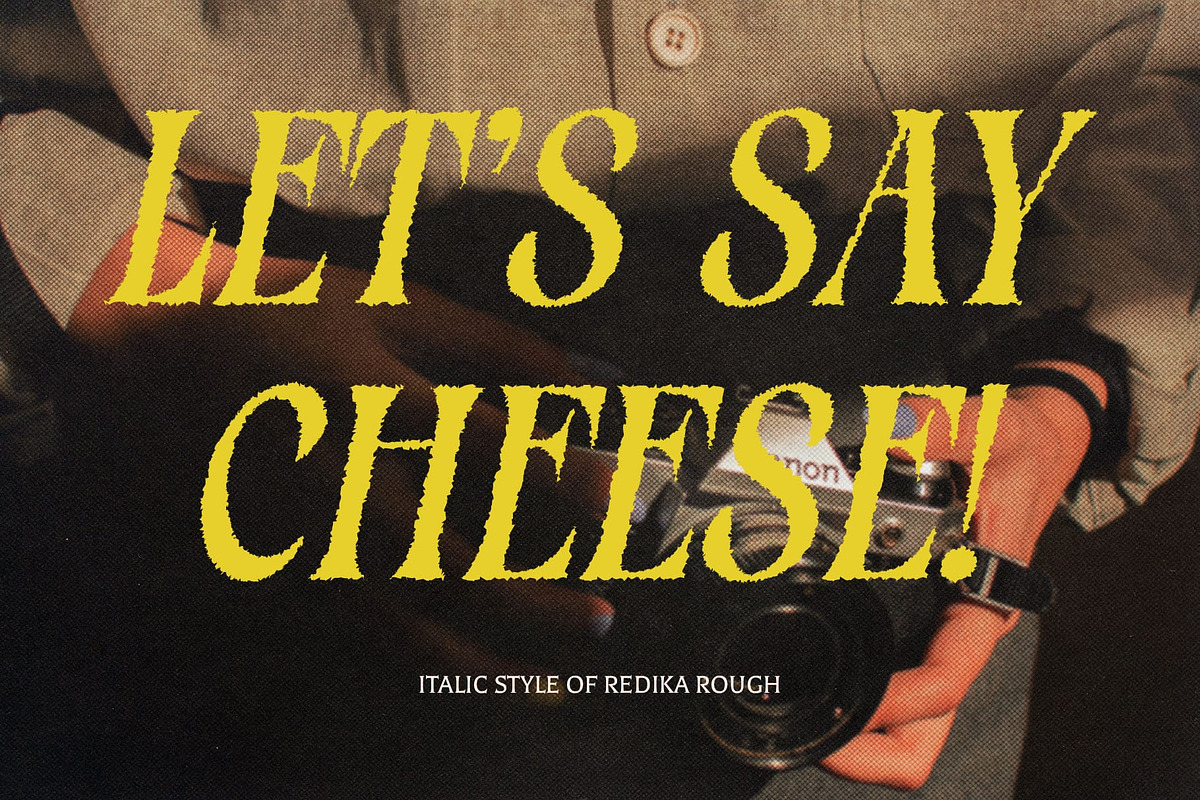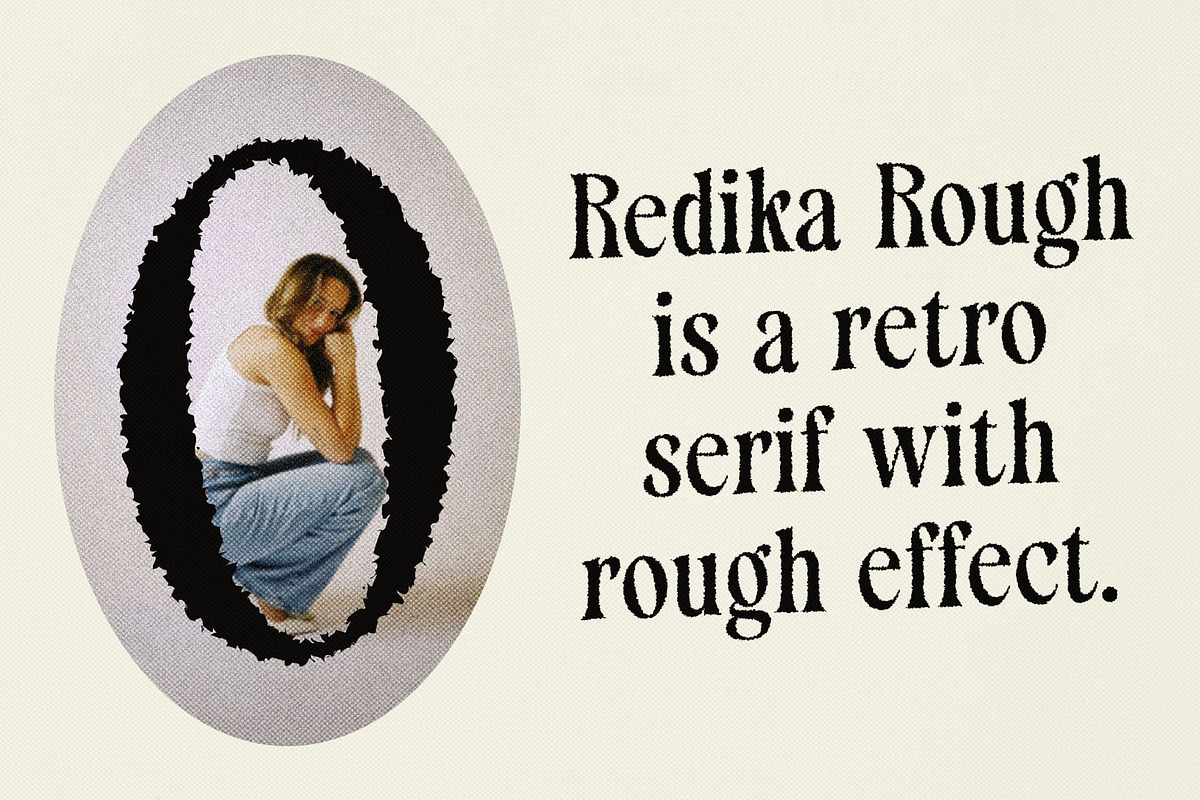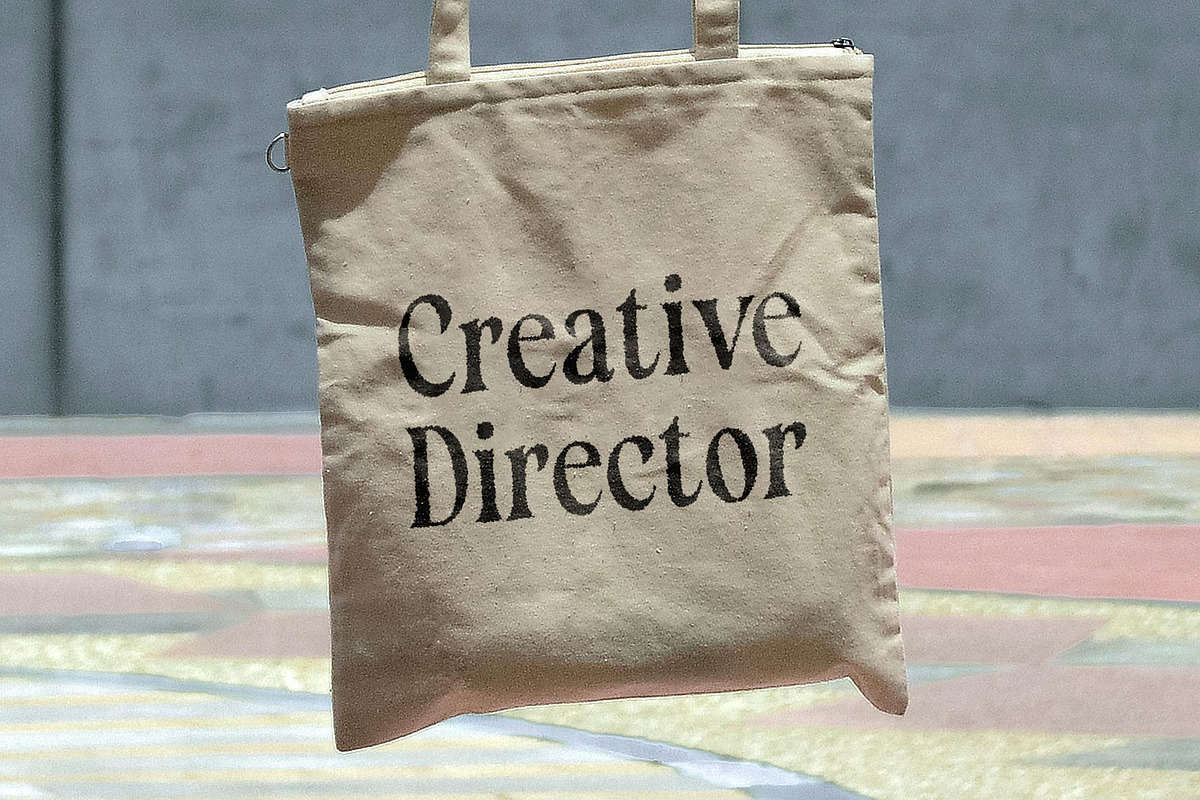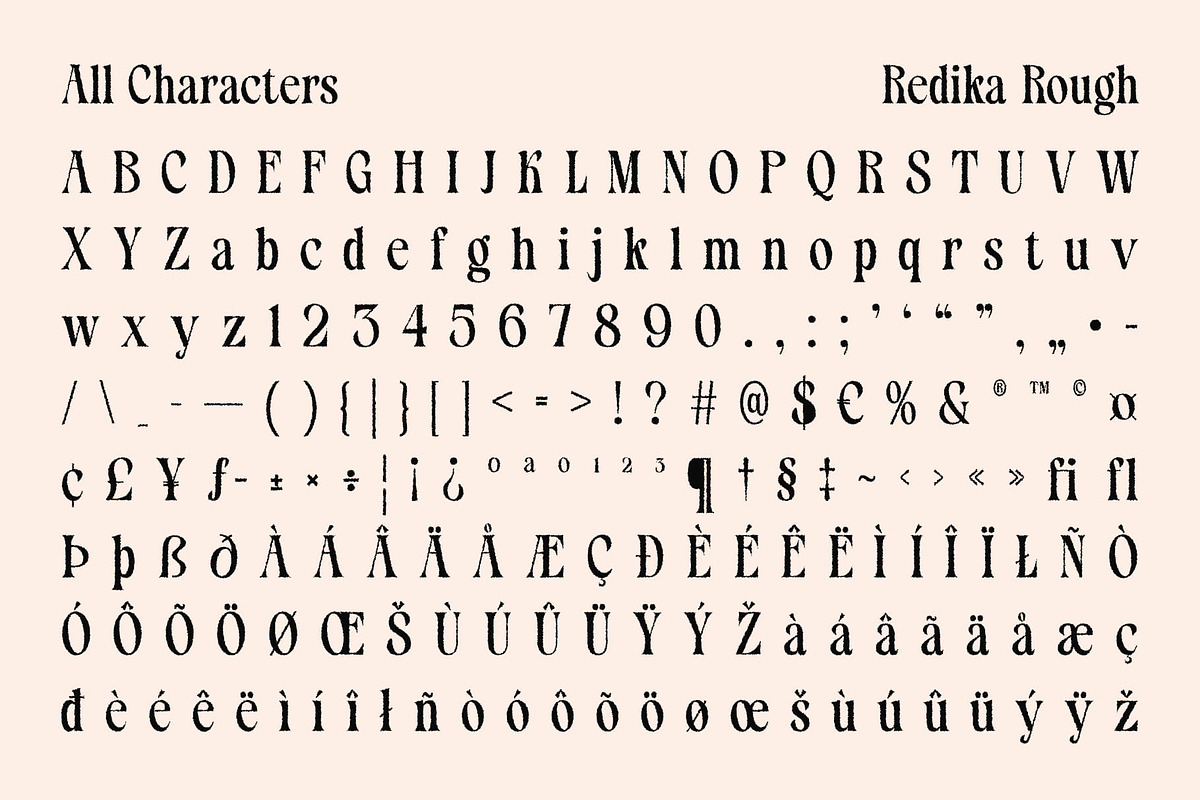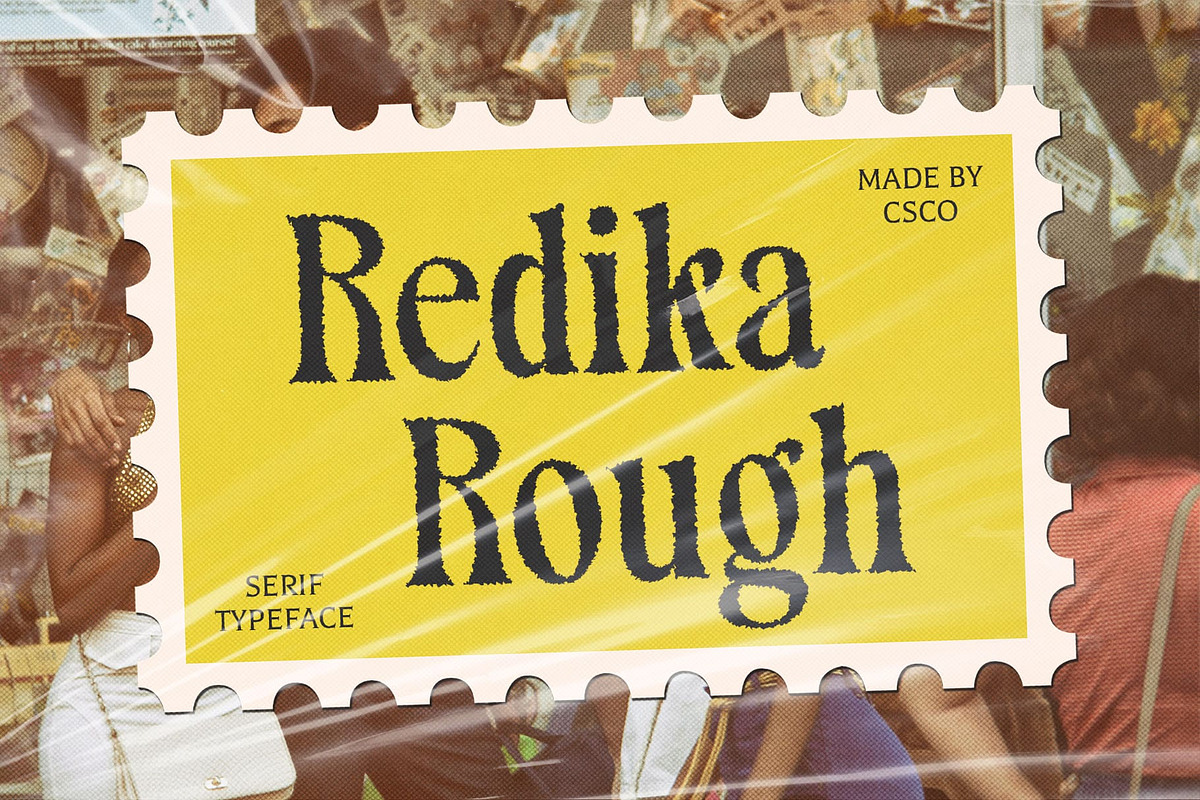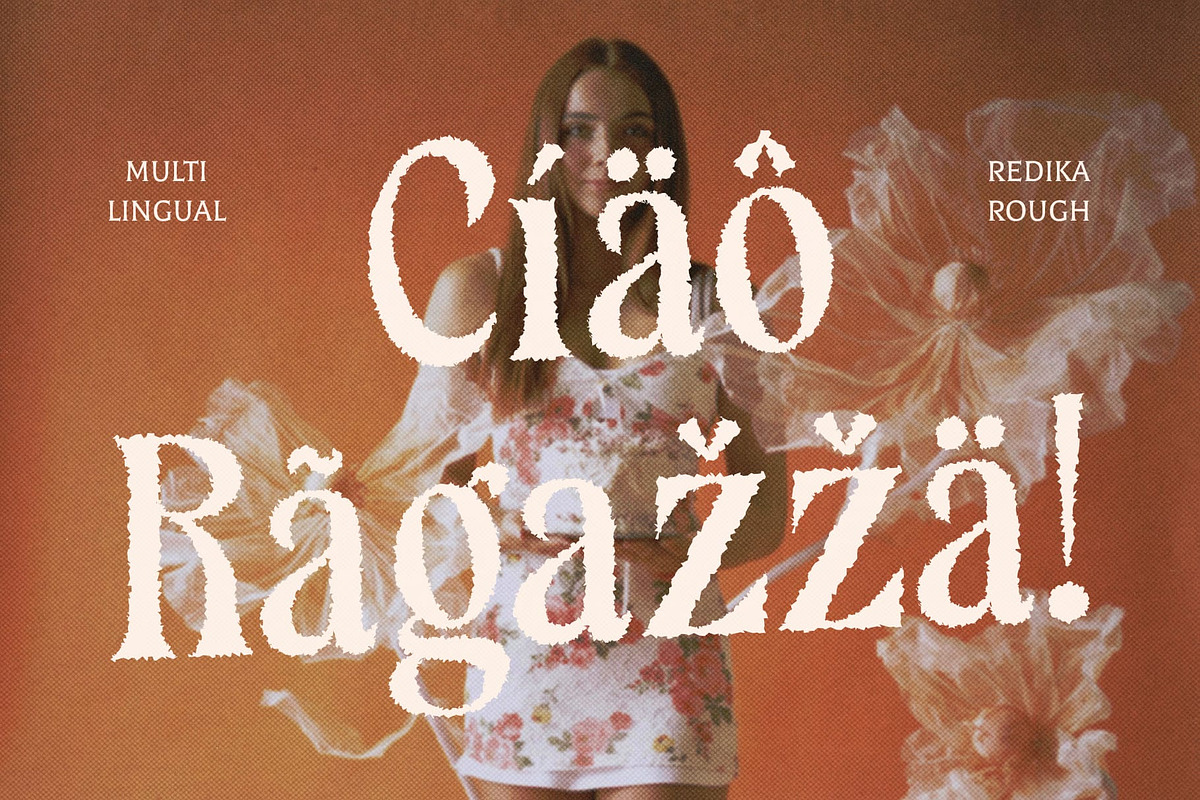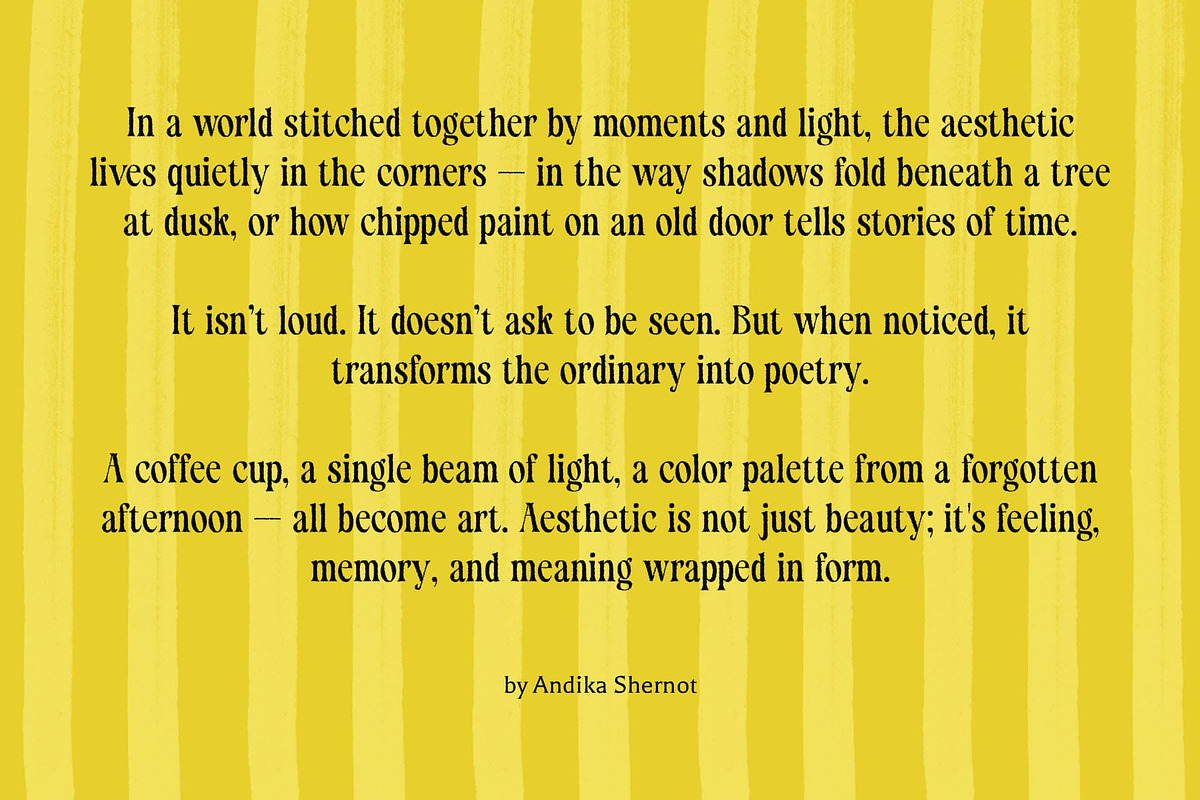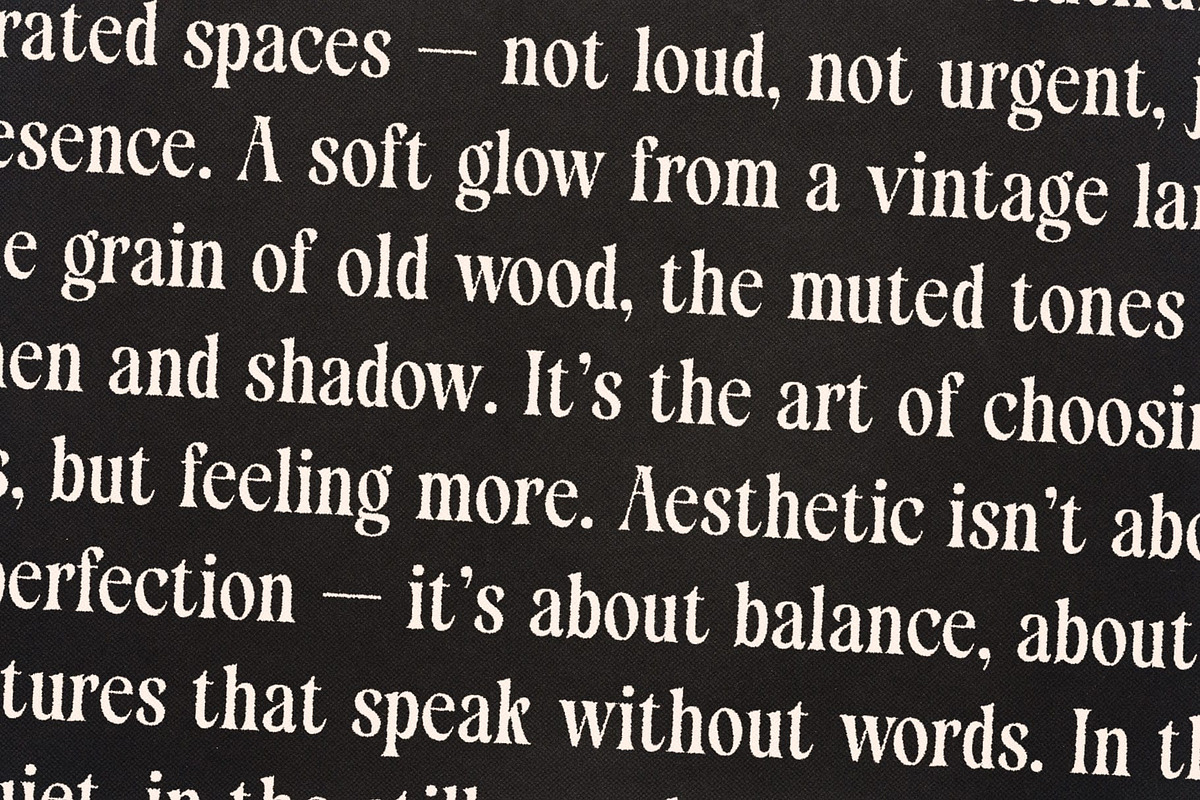
Redika Rough
Redika Rough Font – Timeless Elegance with a Textured Soul
Modern Meets Classic in Refined Form Redika Rough Font beautifully blends the charm of classic serif design with a clean, modern sensibility. Its elegant letterforms feature graceful curves and crisp lines, offering a look that is both polished and captivating. This fusion creates a versatile serif font that feels equally at home in contemporary or traditional design contexts.
Elegant Structure for a Luxurious Impression With carefully balanced proportions and sophisticated serif detailing, Redika Rough exudes a sense of timeless luxury and professionalism. Its structure is thoughtfully crafted to convey clarity, poise, and style—perfect for editorial layouts, fashion branding, or refined visual identities.
Rough Texture for Artistic Warmth Enhancing its polished form is a soft, gritty rough effect that introduces organic texture and tactile depth. This handcrafted finish adds a vintage, slightly imperfect charm to the otherwise clean lines, making the font feel more human, expressive, and full of character.
Perfect for Sophisticated, Creative Design Redika Rough is ideal for projects that aim to merge classic beauty with a contemporary twist. Whether you’re designing upscale invitations, elegant branding, or artistic editorial content, this font brings a harmonious blend of refinement and texture. Its balance of luxury and grit makes it a compelling choice for visuals that seek to be graceful, stylish, and emotionally rich.
- Redika Rough Regular
- Redika Rough Italic